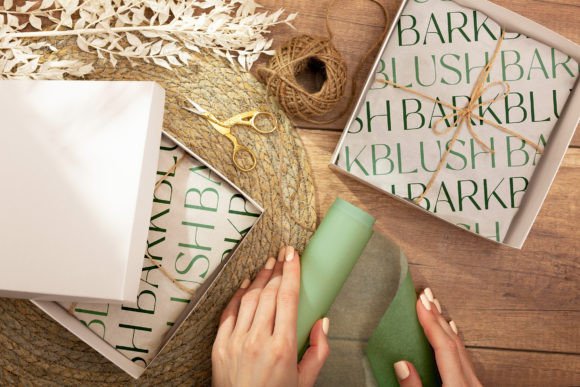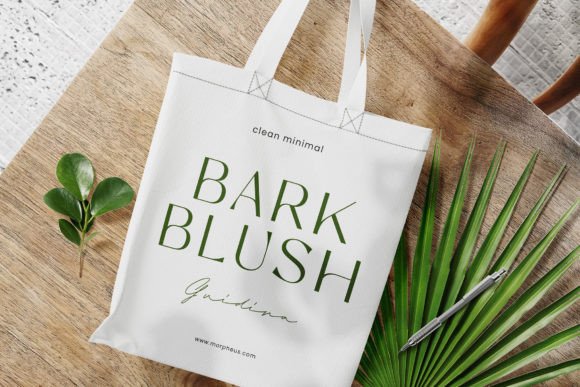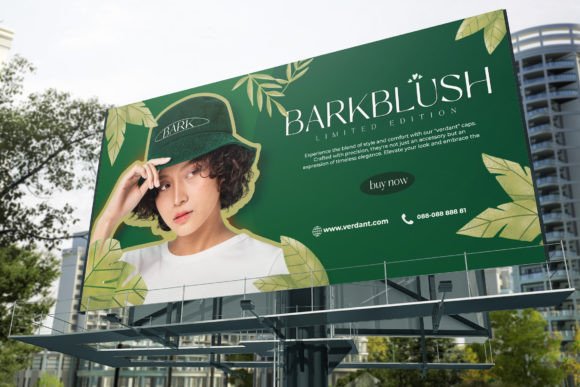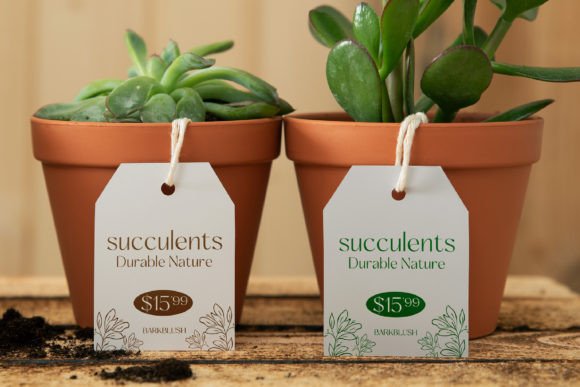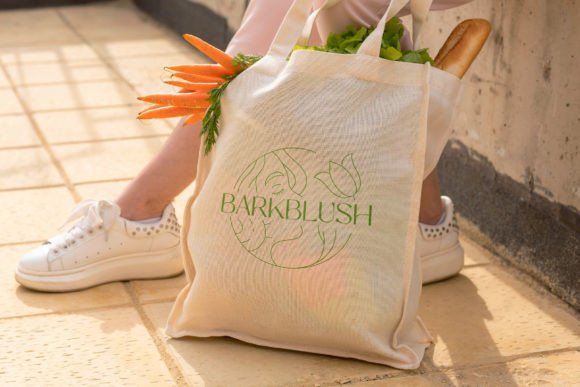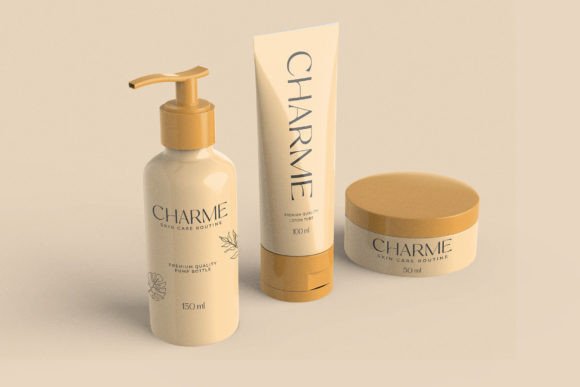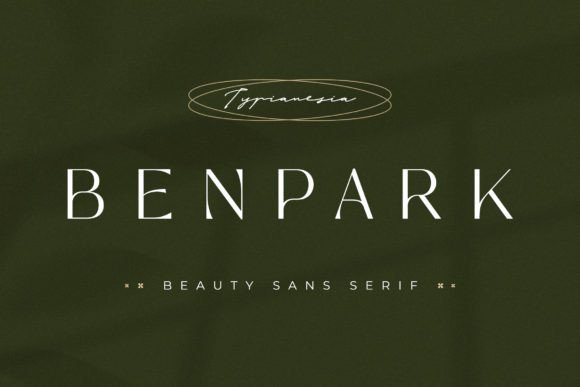
The Benpark Font: A Designer’s Dream Come True
I’ll never forget the time I was working on a wedding invitation project, and my client asked for a font that was both elegant and bold. I scoured the internet, tried out countless fonts, but nothing seemed quite right. That was until I stumbled upon Benpark – an elegant and bold serif font that has since become a staple in my design toolkit. In this article, I’ll share my love for Benpark, its features, and how to make the most of it in your designs.
Honest Review: What I Love (and a Few Quirks)
Benpark is a versatile font that has won my heart with its:
- ✨ Elegant and bold serif design
- ✅ Incredibly versatile style, perfect for various design projects
- 💕 Beautifully crafted letters, perfect for wedding invitations, stationery, and more
- 👍 Highly legible, even at small font sizes
While Benpark is an amazing font, it’s not without its quirks:
- 🤔 Some users might find the font a bit too bold for certain design projects
Benpark offers a range of OpenType features and glyphs that can add more creativity to your designs. Some of the features you can explore include:
| Feature | Description |
| Ligatures | Replace standard letter combinations with stylistic ligatures |
| Stylistic Alternates | Swap standard letters with stylistic alternates for a unique look |
| Glyphs | Access additional characters, such as ornaments and swashes |
Benpark was designed with inspiration from classic serif fonts and a touch of modern elegance. The font’s creator aimed to craft a font that would be both versatile and beautiful, perfect for a range of design projects. Whether you’re designing wedding invitations, stationery, or social media posts, Benpark is sure to impress.
| Author | Typia Nesia |
- Q: What type of designs is Benpark best suited for?
- A: Benpark is perfect for wedding invitations, stationery, social media posts, and any design project that requires an elegant and bold serif font.
- Q: Is Benpark available in different font weights?
- A: Yes, Benpark comes in various font weights, making it easy to use for both headings and body text.